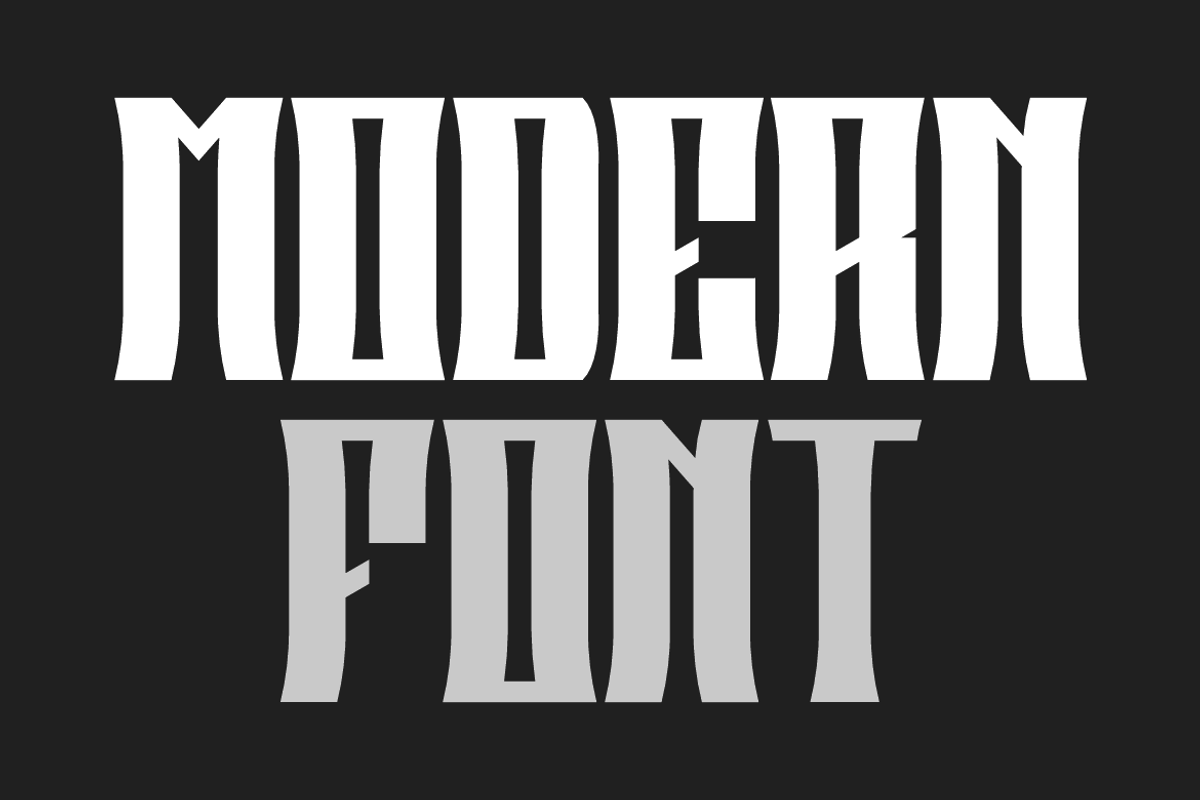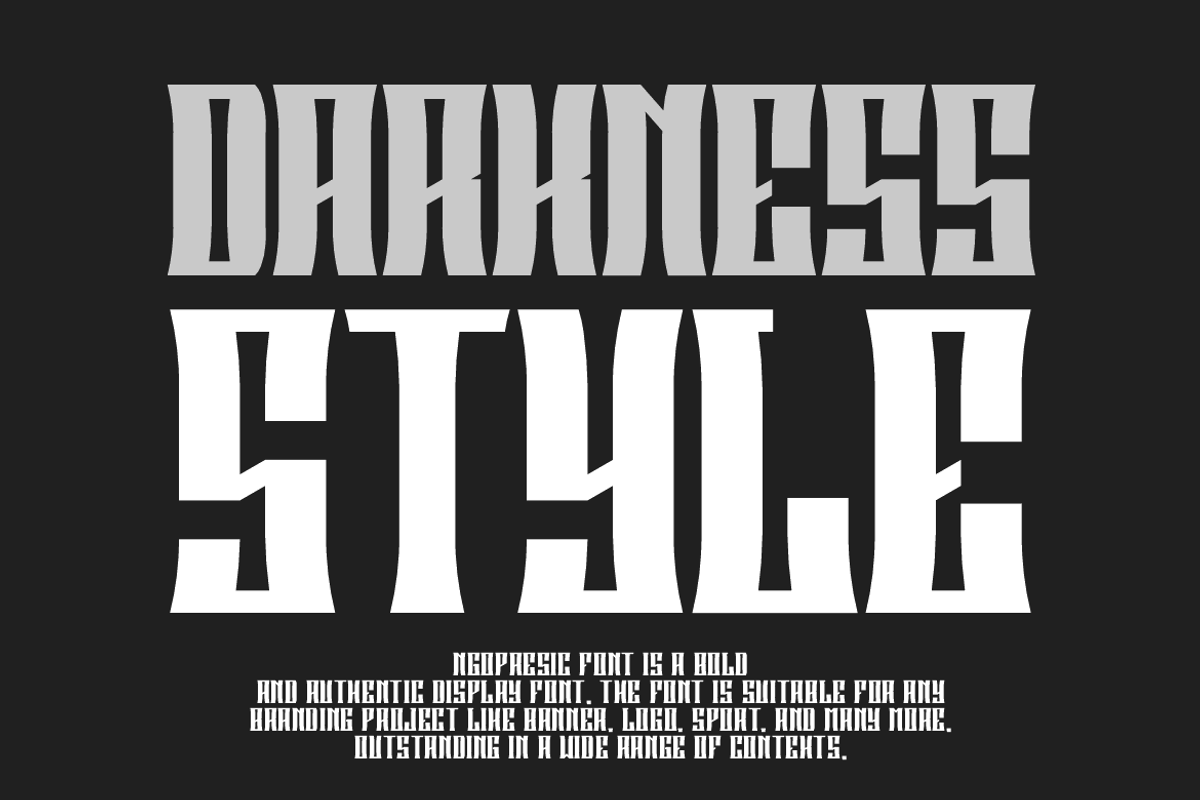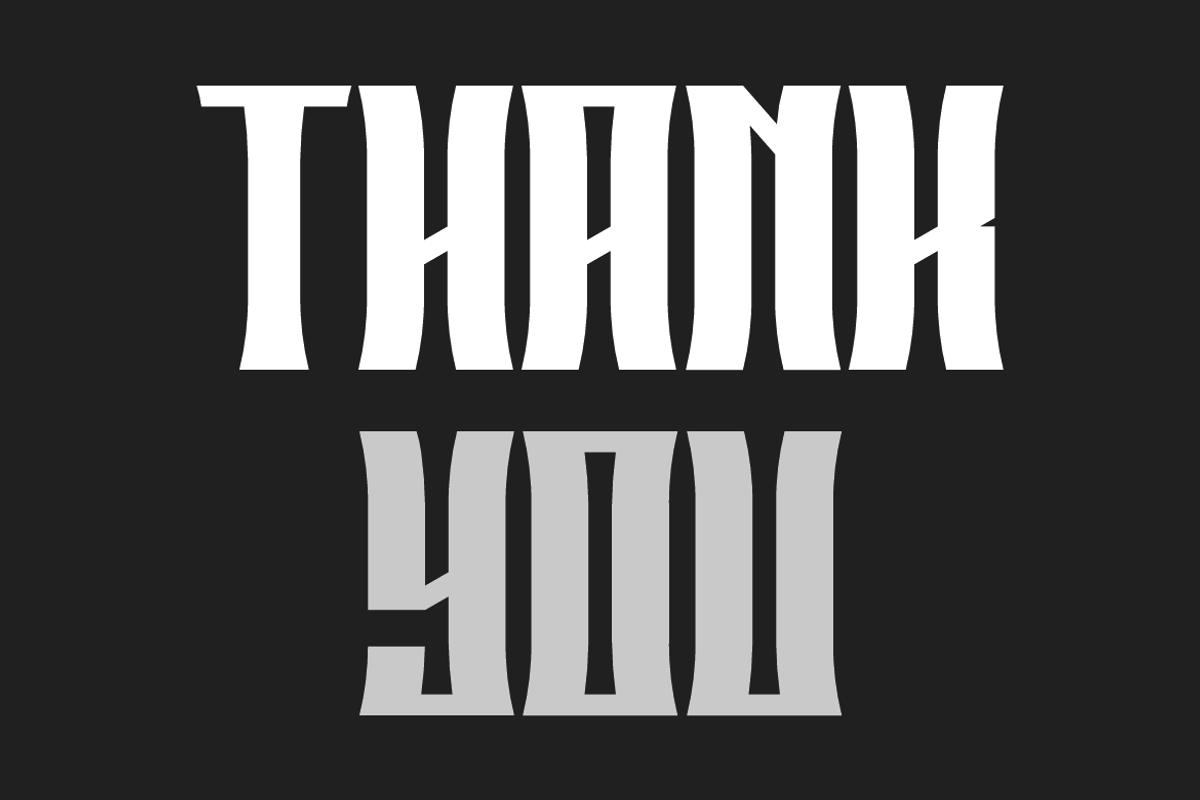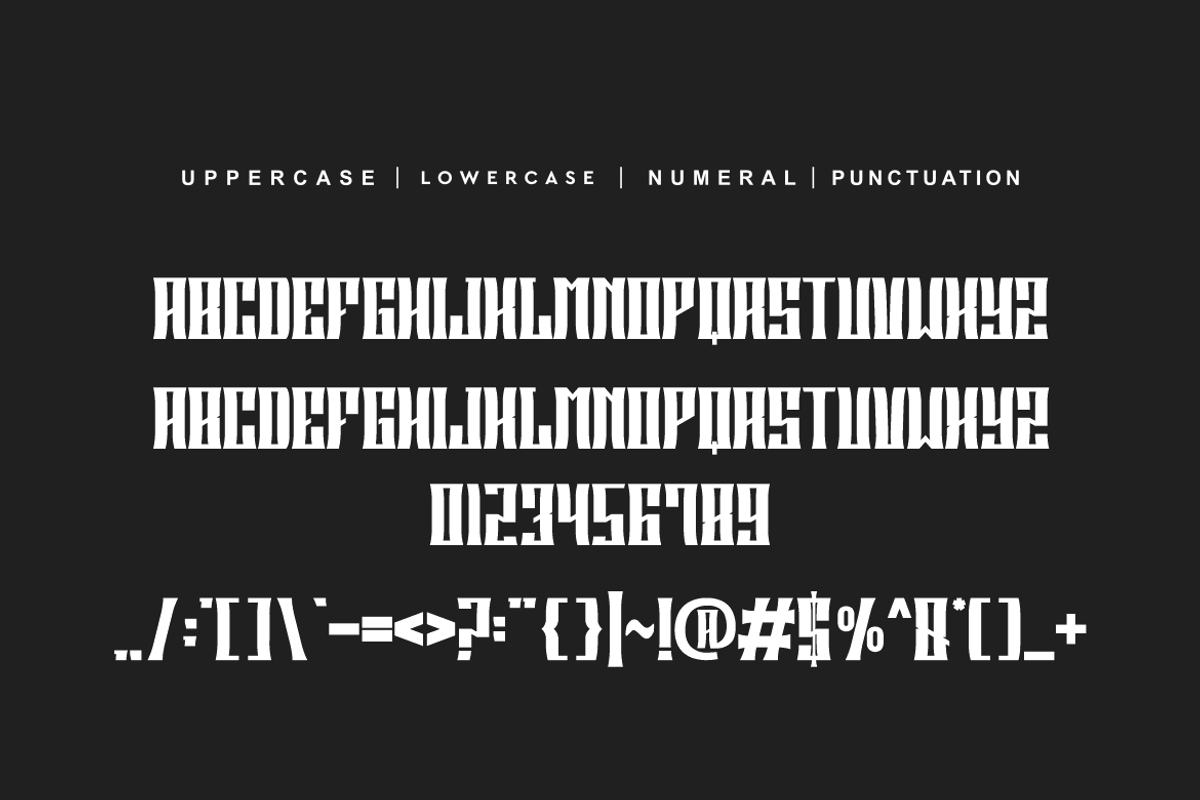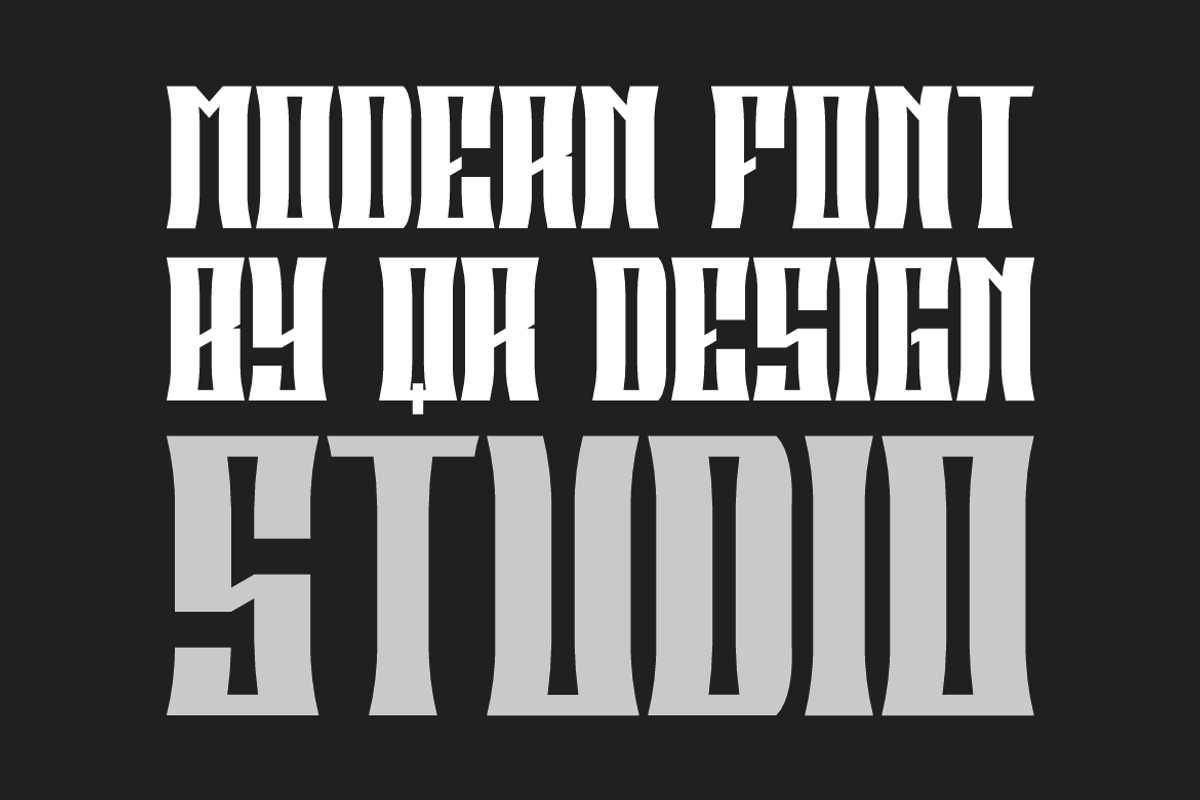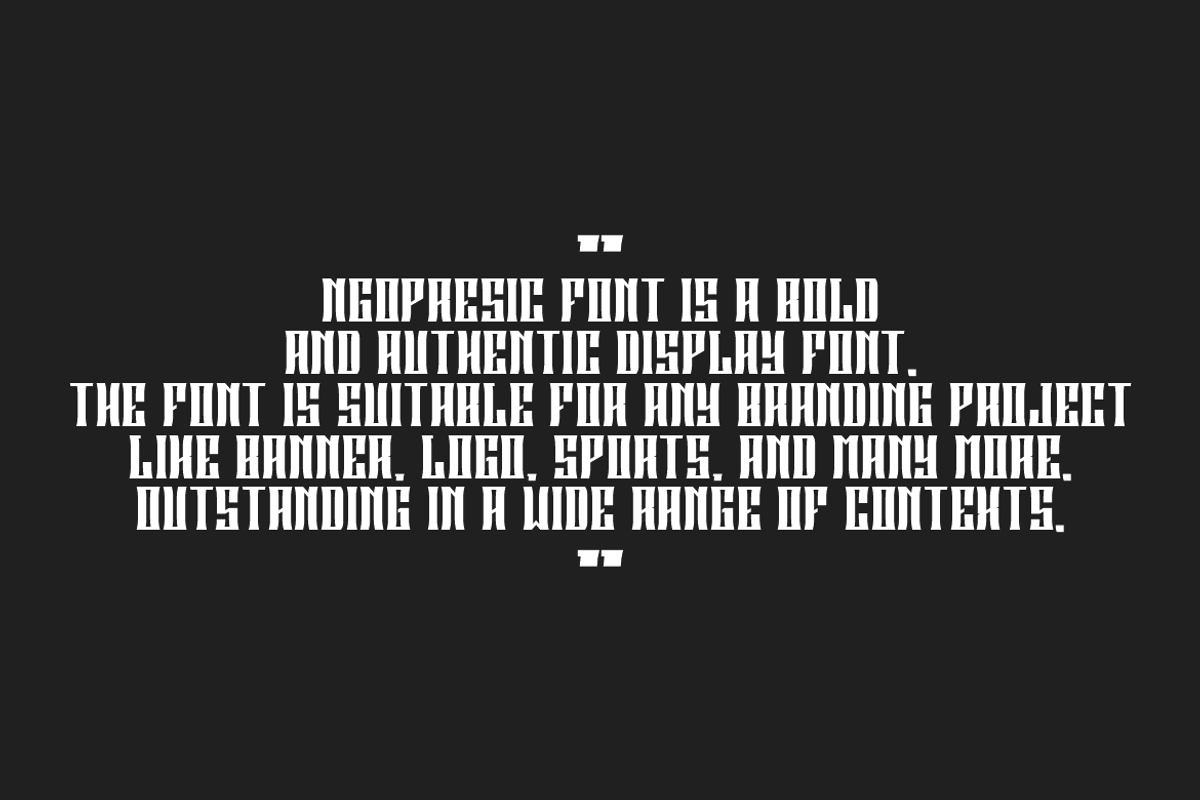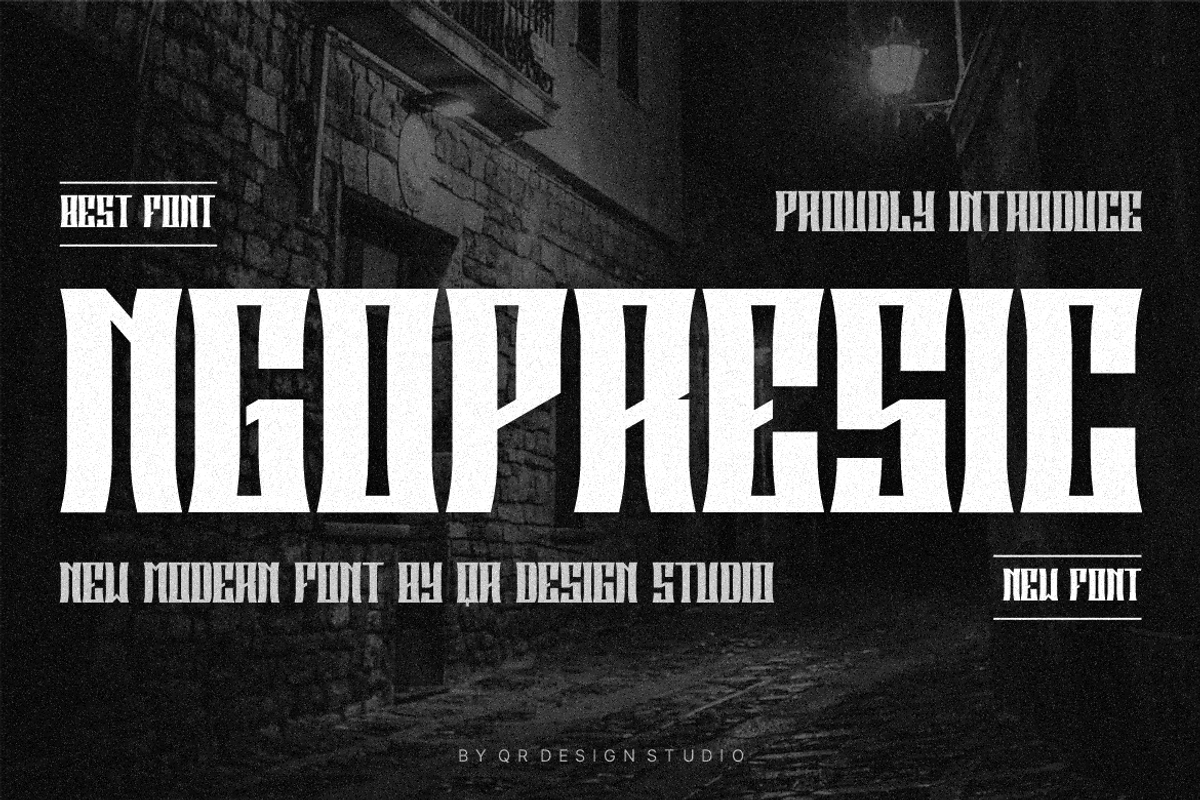
Ngopresic
Ngopresic Font is a bold and authentic display font. The font is suitable for any branding project like logo, sport, and many more. Outstanding in a wide range of contexts.